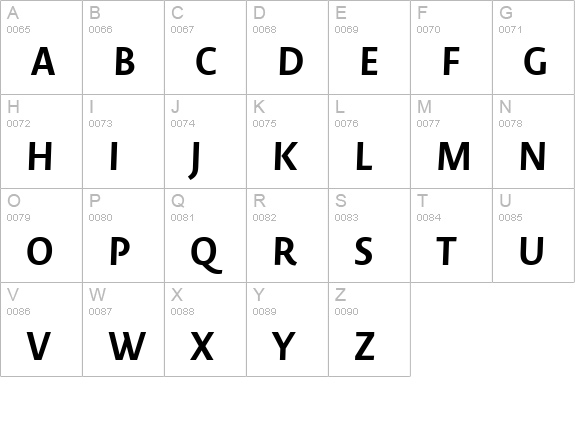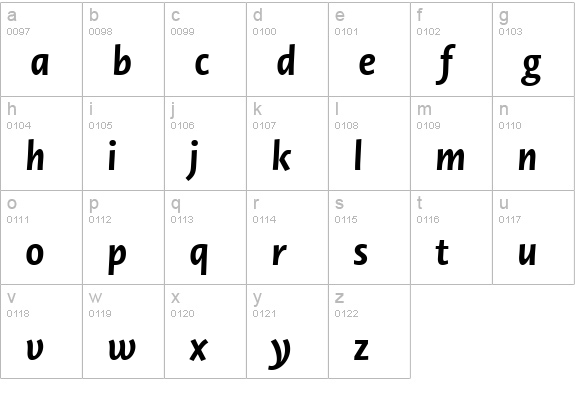
Novel Sans Pro Bold It Font Details
Novel Sans Pro Bold It is a strong, high-contrast variant in the Novel typeface family \xE2\x80\x94 well suited to headlines, attention-grabbing titles, and strong calls-to-action.
Novel Sans Pro Bold It is a modern and versatile font that exudes confidence and sophistication. Its bold weight and sleek italics make it perfect for headlines, titles, and emphasis in any design project. The clean lines and balanced proportions of this typeface give it a timeless appeal that is both professional and approachable. What sets Novel Sans Pro Bold It apart is that it is available for free download at FontsMarket.com. This means that designers and creatives can easily access this high-quality font without any cost, making it a valuable addition to any font library. Whether you're working on a print project, website design, or branding, Novel Sans Pro Bold It is sure to make a bold statement and elevate your work to the next level.